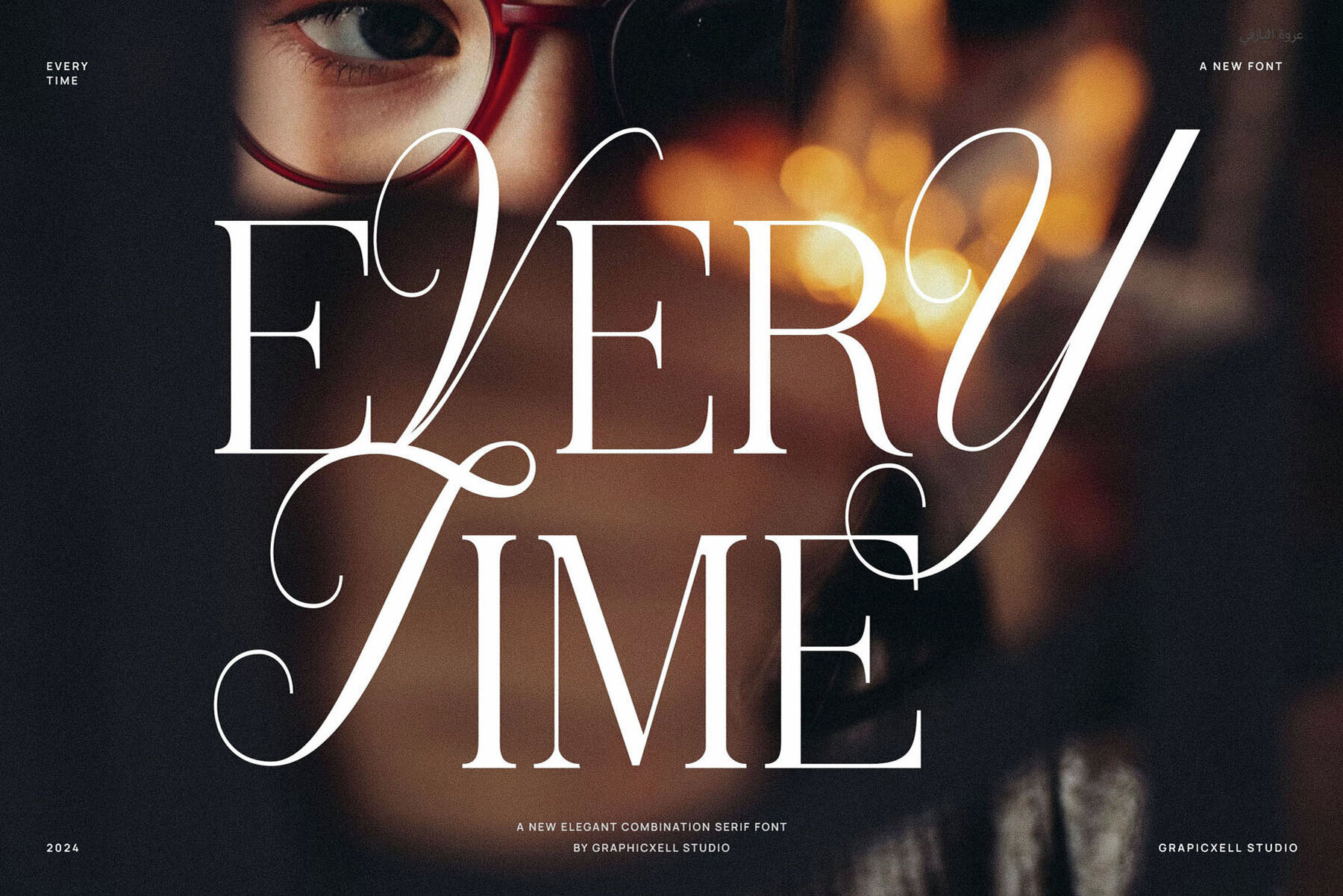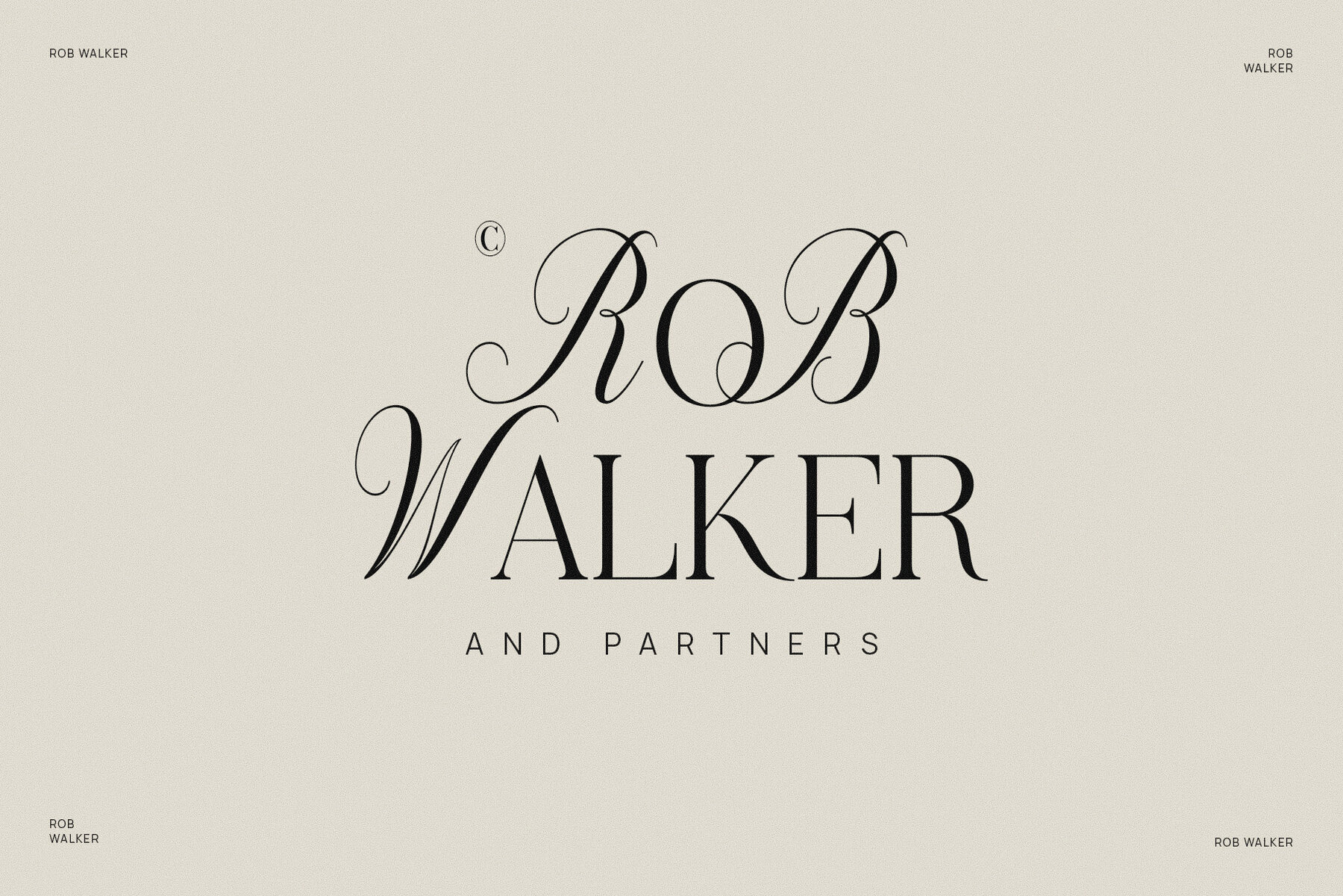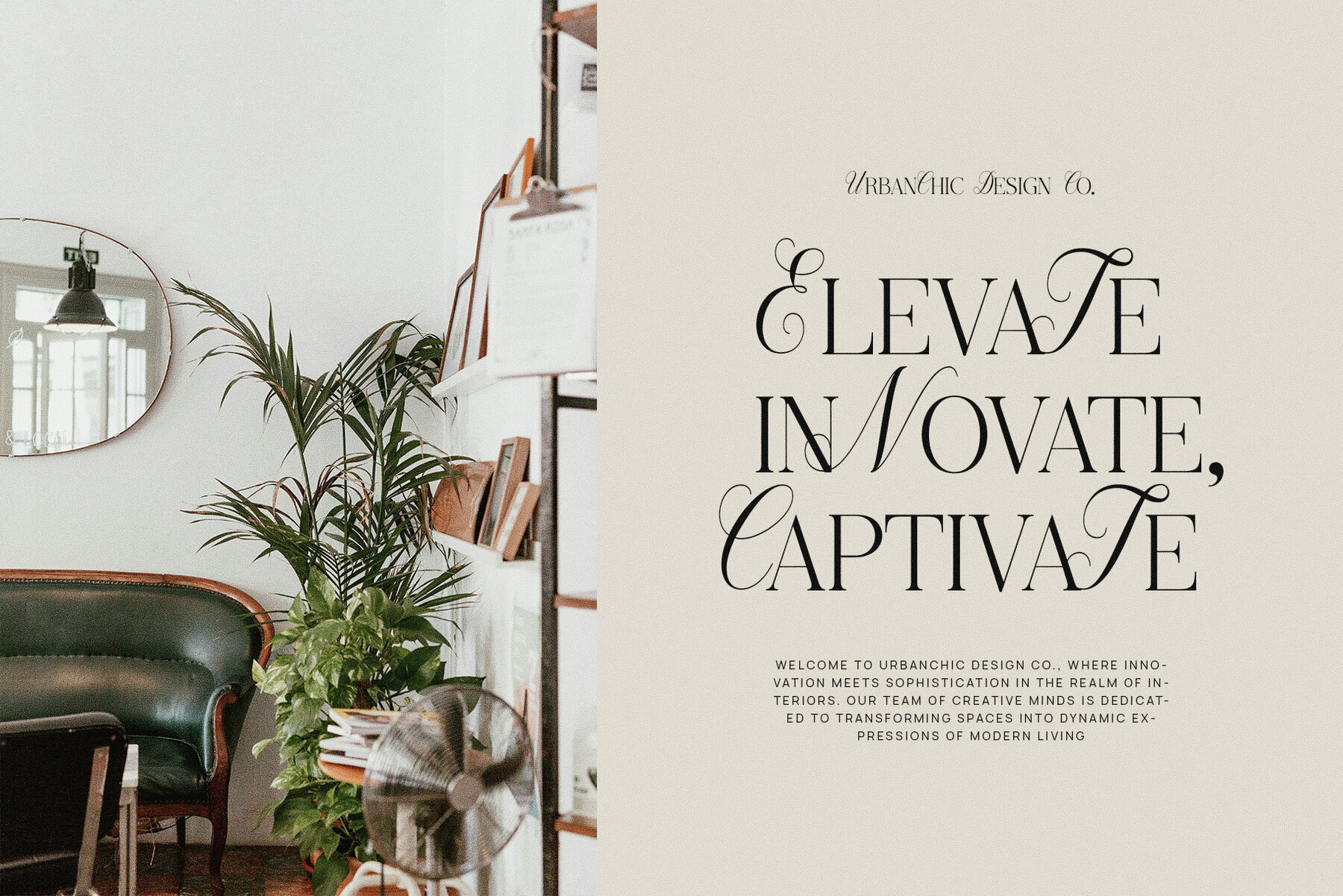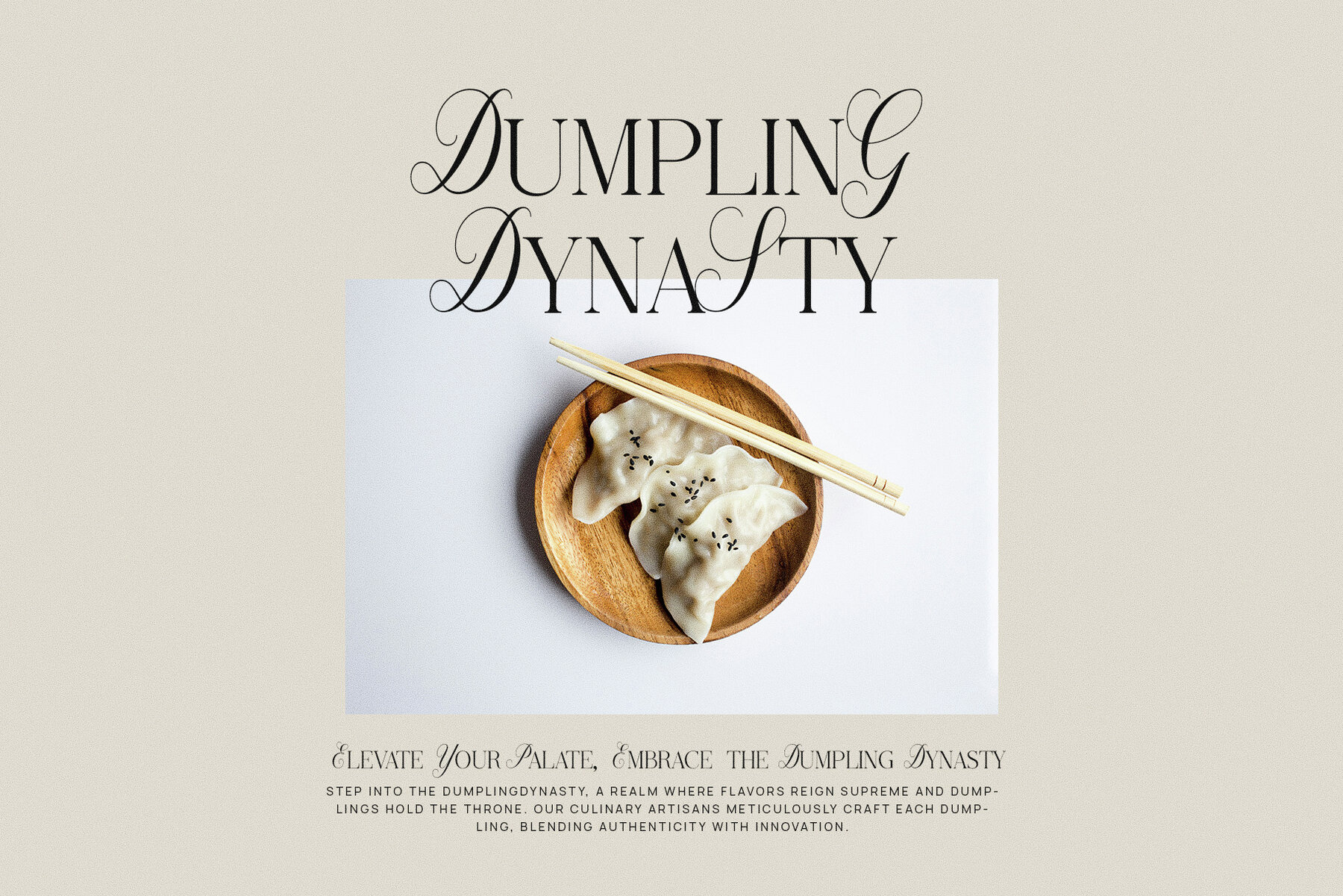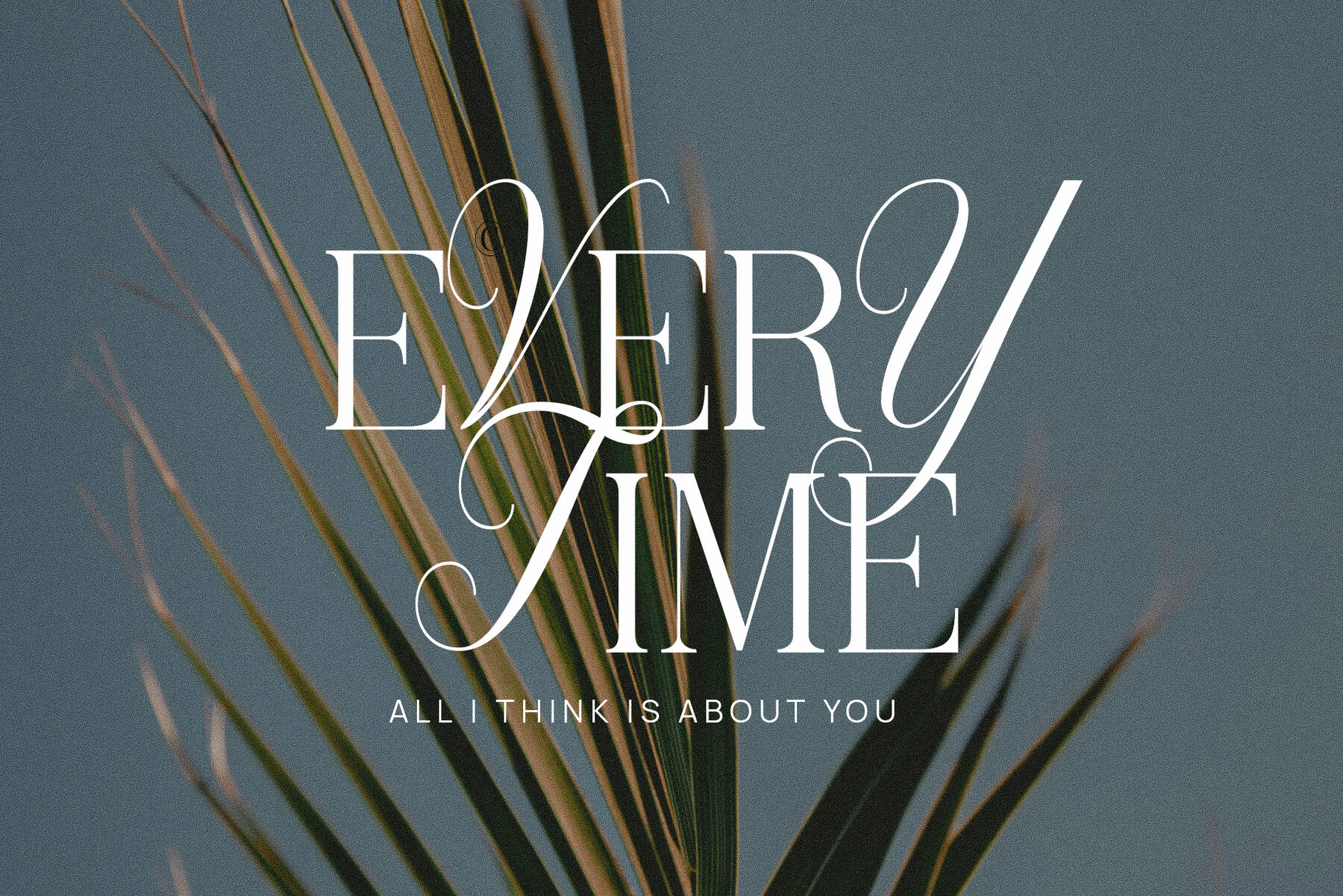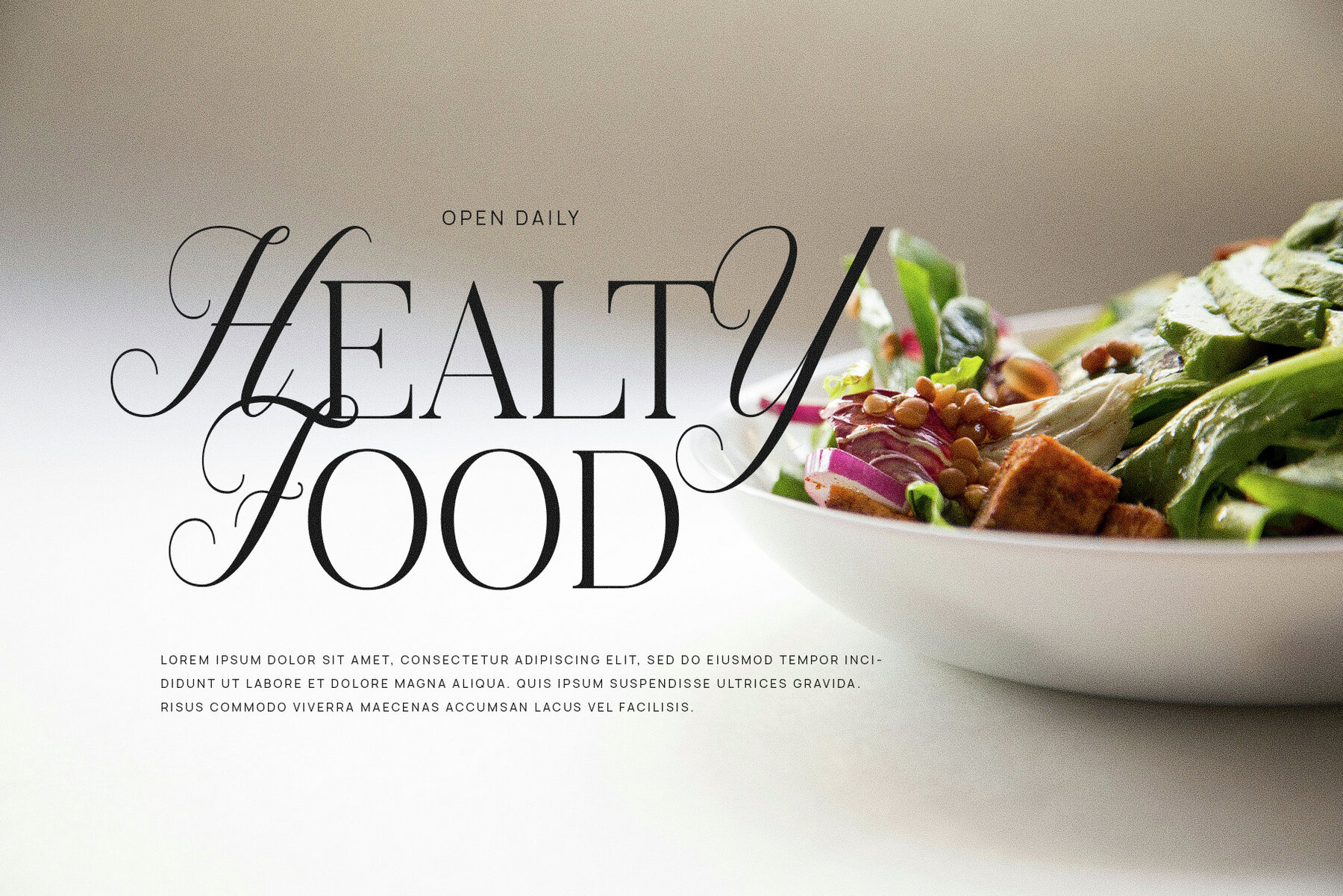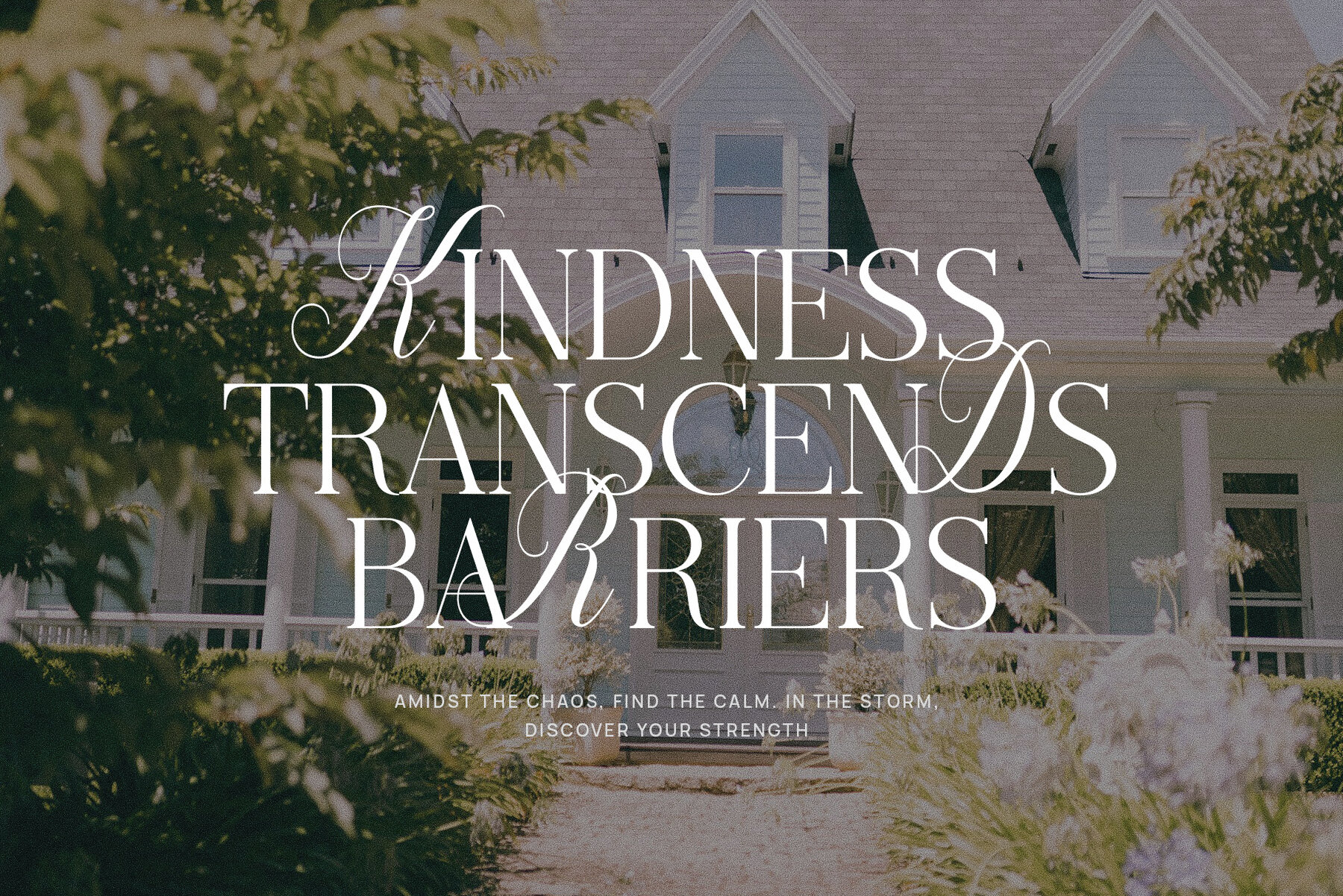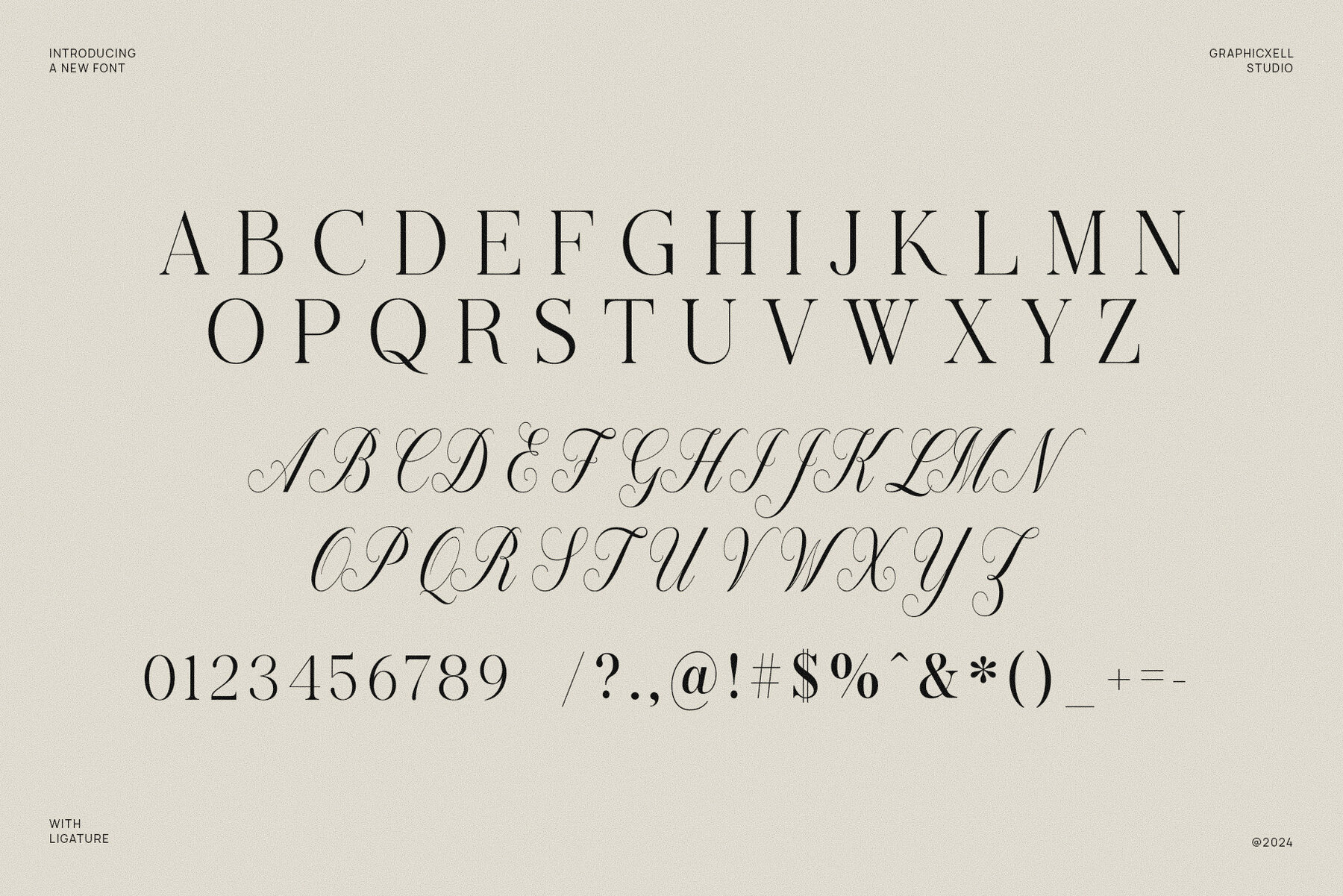
Every Time Font
Every Time Regular
Every Time Elegant Serif Combination is a sophisticated and versatile font that combines classic serif with modern elegance. The serif elements provide a sense of tradition and authority, while the modern touches add a contemporary flair.
This font is perfect for projects that require a balance between timeless sophistication and modern style.
Whether you're working on branding projects, creating logos, designing wedding invitations, crafting social media posts, developing advertisements, designing product packaging, creating product designs, designing labels, adding watermarks to your images, creating invitations, or designing stationery, this font will meet your needs with its high level of readability and exquisite style.
One of the standout features of Every Time Elegant Serif Combination Font is its versatility. It can be used across a wide range of projects, adding a touch of sophistication and elegance to each one.
If you're looking for a font that will elevate your designs and leave a lasting impression, Every Time Elegant Serif Combination Font is an excellent choice.